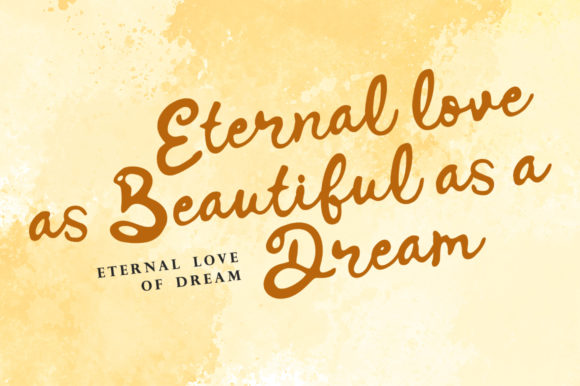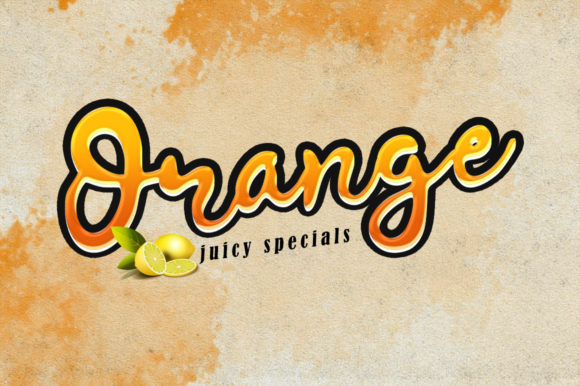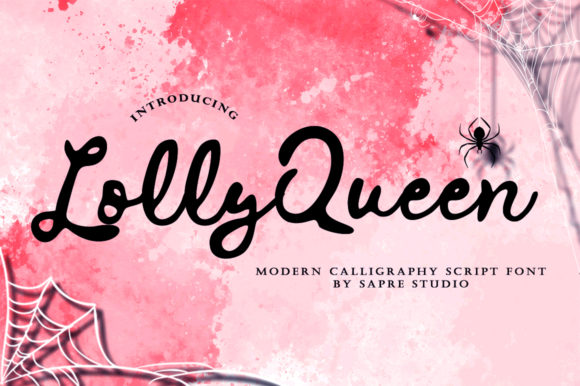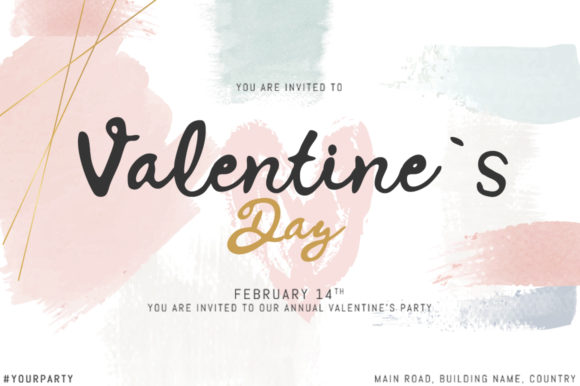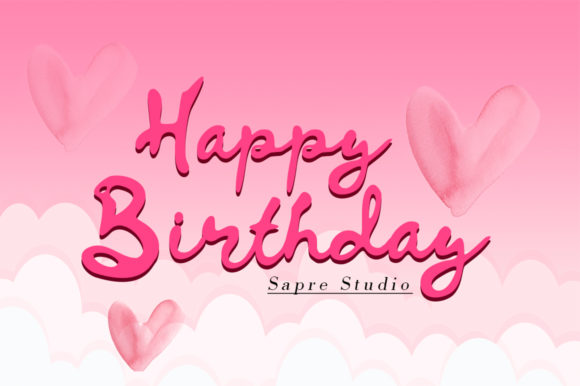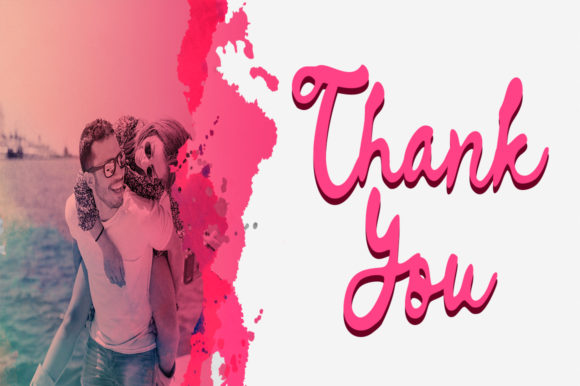
Introduction to Lolly Queen Font
You know that moment when you’re brainstorming ideas for your next creative project, and suddenly, a font pops into your head, bringing it all together? For many designers, that’s the magic of finding the perfect font. And for those who’ve discovered it, there’s no turning back. The Lolly Queen Font is one such treasure that simplifies elegance into one truly outstanding handwritten font.
Whether you’re looking for fonts to elevate your Instagram aesthetic or calligraphy scripts for DIY projects, the Lolly Queen Font will turn any creative idea into a true piece of art. As a valuable resource for designers, this high-quality font offers a wide range of possibilities, from transparent backgrounds to custom designs. And the best part? It’s available for free download, making it an essential addition to any design toolkit.
Key Features of Lolly Queen Font
- High-quality design resource with a playful and elegant touch, ideal for creative projects.
- Comes in a single weight, making it easy to use in a variety of creative contexts.
- Perfect for use in digital and print design projects, including logos, branding, and editorial content.
Honest Review: Lolly Queen Font
I recently had the chance to dive into the Lolly Queen Font, and I’m excited to share my thoughts with you. As a designer, it’s always refreshing to stumble upon a high-quality font that can elevate a creative project.
- ✨ The Lolly Queen Font offers a unique, whimsical feel that’s perfect for projects that need a touch of playfulness.
- ⚠️ The font may not be suitable for formal or corporate projects due to its playful nature.
- ⚠️ Some users may find the font’s quirks and irregularities distracting, depending on their personal design preferences.
Overall, I think the Lolly Queen Font is a fantastic addition to any designer’s toolkit. Its unique charm and high quality make it an excellent choice for creative projects that need a bit of flair. Just be mindful of its limitations and use it in contexts where its playful nature will shine.
For the best results, use the Lolly Queen Font in conjunction with a transparent background. This will allow you to layer the font with other design elements and create a truly unique and eye-catching design. Additionally, be sure to experiment with different font sizes and styles to find the perfect look for your creative project.
The Lolly Queen Font is a versatile design resource that can be used in a variety of creative projects. Some common use cases include logos, branding materials, and social media graphics. Its high-quality design and transparent background make it a great option for anyone looking to add a touch of elegance and sophistication to their design work.